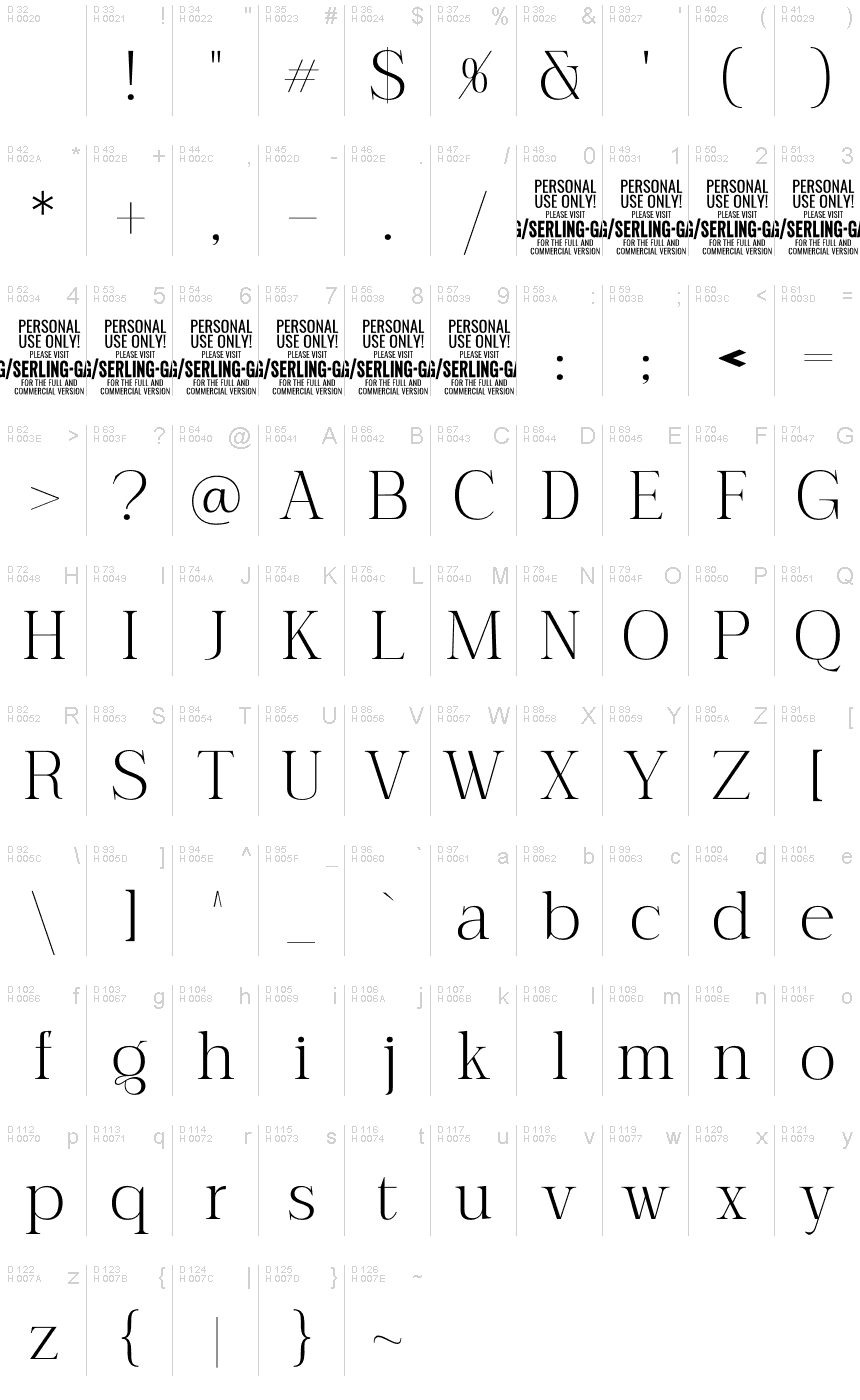
Serling Galleria PERSONAL USE Light
Serling Galleria Light is a stunning serif font designed by Mans Greback. With its sleek and modern style, this font is perfect for a wide range of projects, from elegant wedding invitations to minimalist business logos. Its light weight adds an air of sophistication and refinement to any design, making it suitable for high-end fashion magazines, luxury branding campaigns or upscale advertising materials. The clean lines of Serling Galleria Light make it easy to read and highly legible, ensuring that your message will be conveyed effectively. Give your designs a touch of class with this exquisite typeface.
Serling Galleria is a classy, classic serif font that exudes an air of fine art and high-end creativity. With its clear, legible letterforms and modernist inventiveness, Serling Galleria brings a touch of strict creativity to your designs, making them stand out in sophistication.